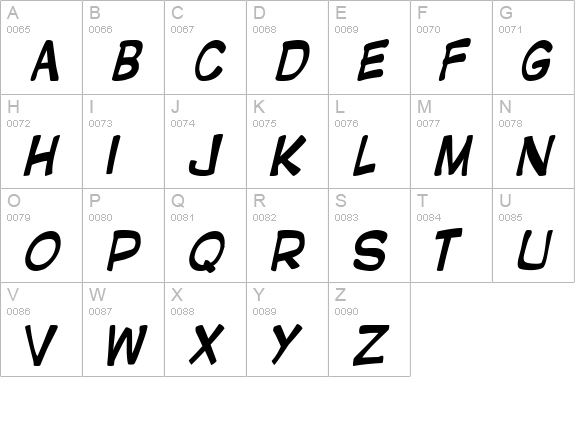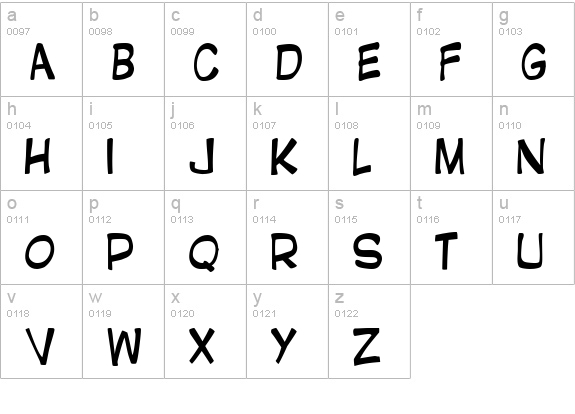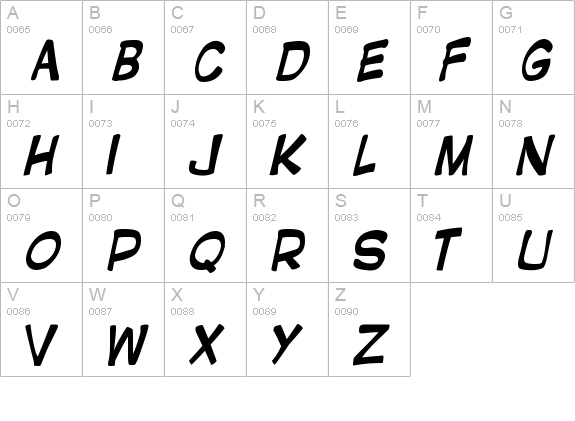
GNATFONT Font Details
GNATFONT is a versatile and stylish font that is perfect for a wide range of design projects. With its unique yet readable design, GNATFONT adds a touch of modern sophistication to any text or graphic. This font is available for free download at FontsMarket.com, making it accessible to all designers and creatives looking to enhance their work with a fresh and contemporary typeface. Whether you're creating a logo, poster, website, or any other design project, GNATFONT is sure to make a statement and elevate your visuals to the next level. Download GNATFONT today and unleash your creativity with this beautiful and free font.